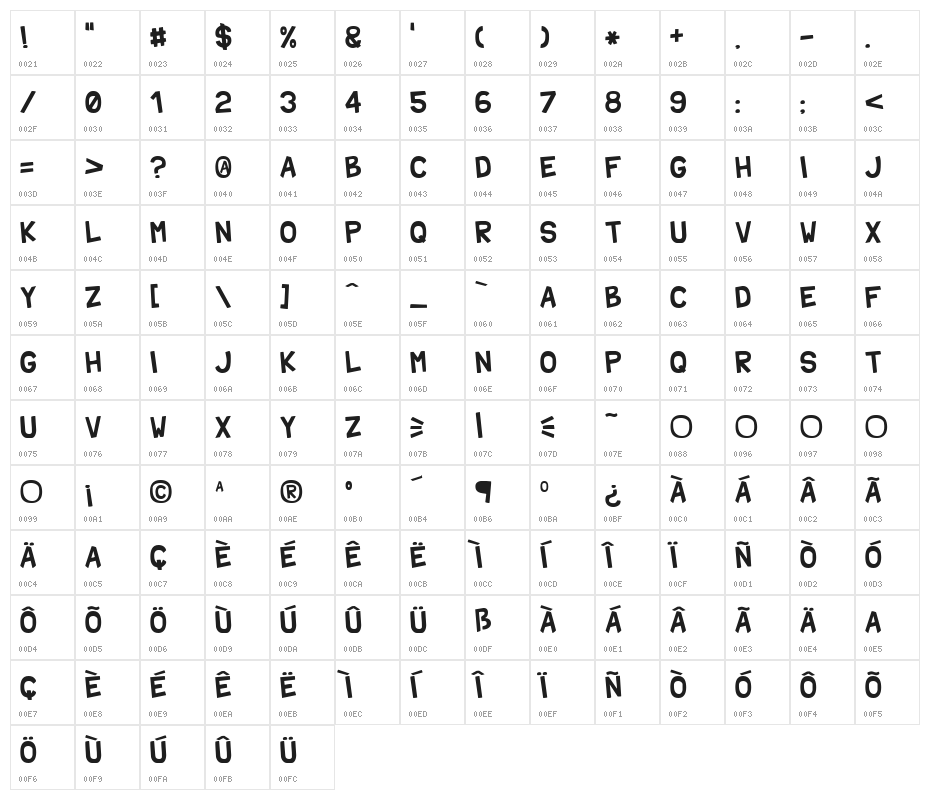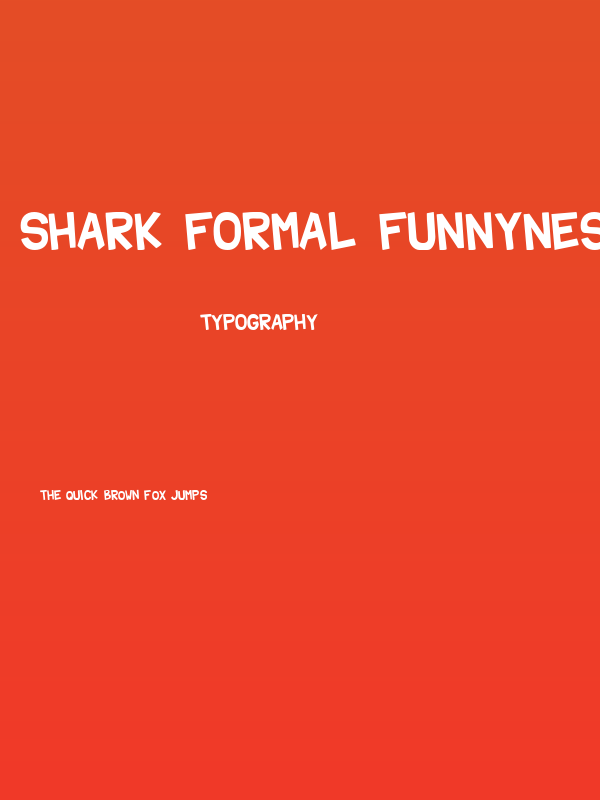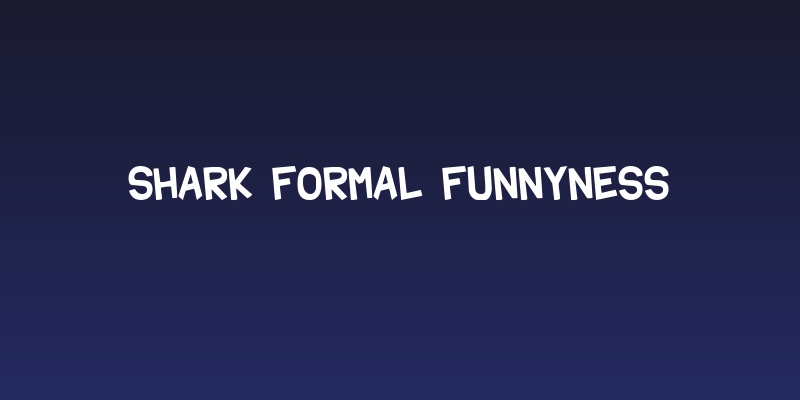
Shark Formal Funnyness Font
Shark Formal Funnyness Description
This font features a playful and bold style with a slightly informal touch. The characters are thick and have a cartoonish, exaggerated appearance, making them stand out prominently. The uppercase and lowercase letters maintain a consistent width, contributing to a cohesive look. The numbers and special characters follow the same bold and whimsical design, ensuring uniformity across all elements. The font's unique style is characterized by its slightly tilted and uneven lines, adding a sense of fun and movement. This makes it ideal for projects that require a lively and engaging visual impact.
| Overall Style | Playful, Cartoonish |
| Use Case | Headlines, Posters, Branding |
| Proposed Projects | Ideal for children's books, comic strips, playful branding, and event posters. |